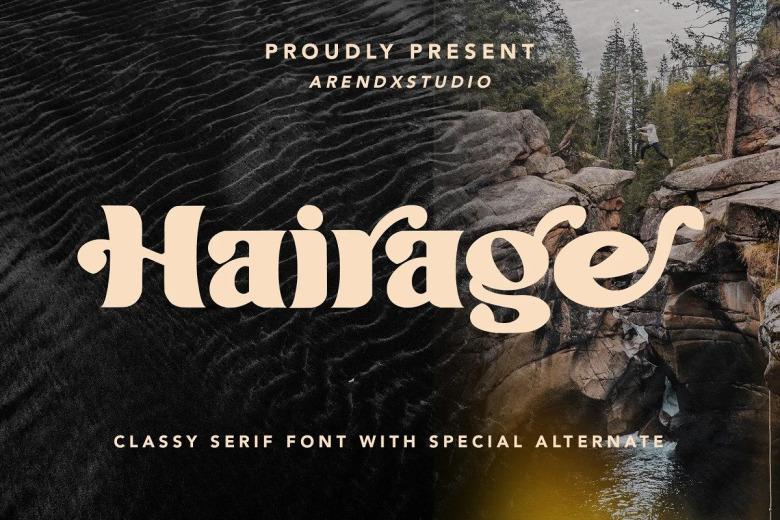
Hairage Font
Hairage is a bold vintage style serif font created by Arendxstudio with strong character and soft features. This is a font with distinctive handwritten characters perfect for branding projects, logos, wedding designs, media posts, advertisements, product packaging, product designs, labels, photography, watermarks, invitations, stationery, and any project who need handwritten dishes.